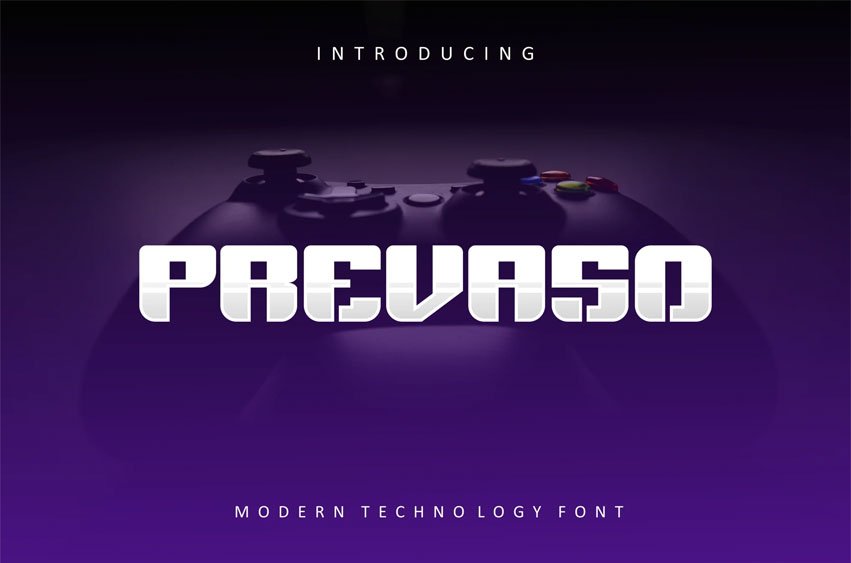
Prevaso Font Modern Font is a bold and authentic display font.
The font is suitable for any branding project like logo, t-shirt printing, esport, and many more. outstanding in a wide range of contexts.